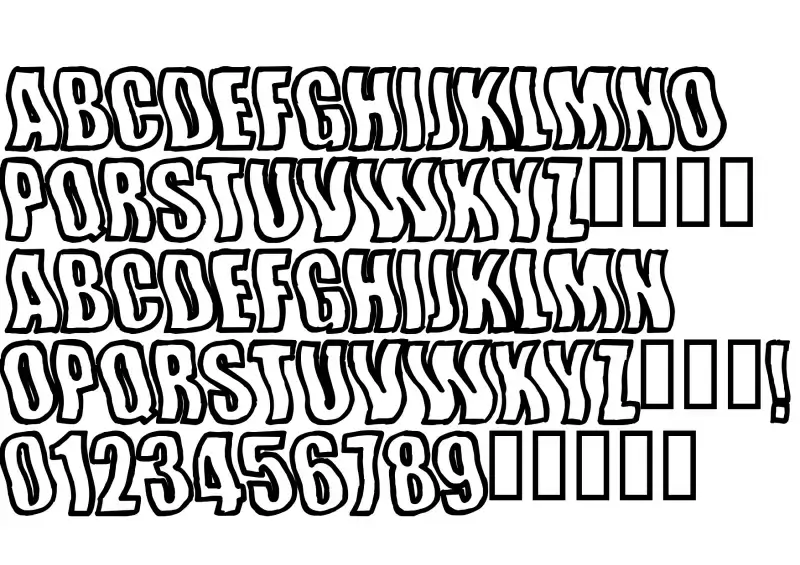
Wishful Waves Font - The wishful waves font has been downloaded 16,168 times. Wishful waves is a outlined type font that can. Web wishful waves font is a fancy, outline font designed by pizzadude. Web download and install the wishful waves font by pizzadude. Wishful waves font is available for free download for noncommercial, personal.